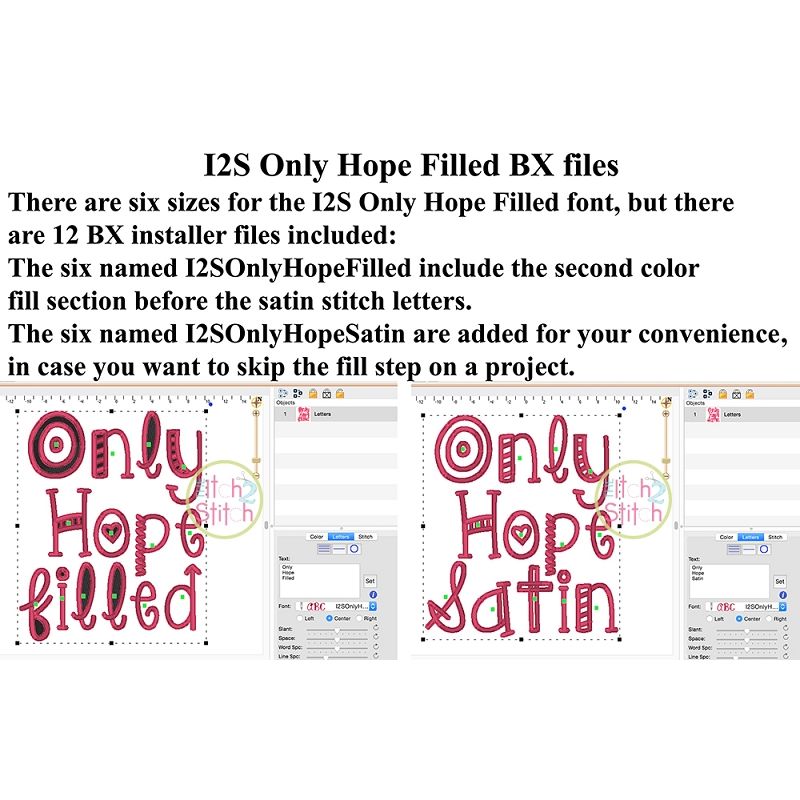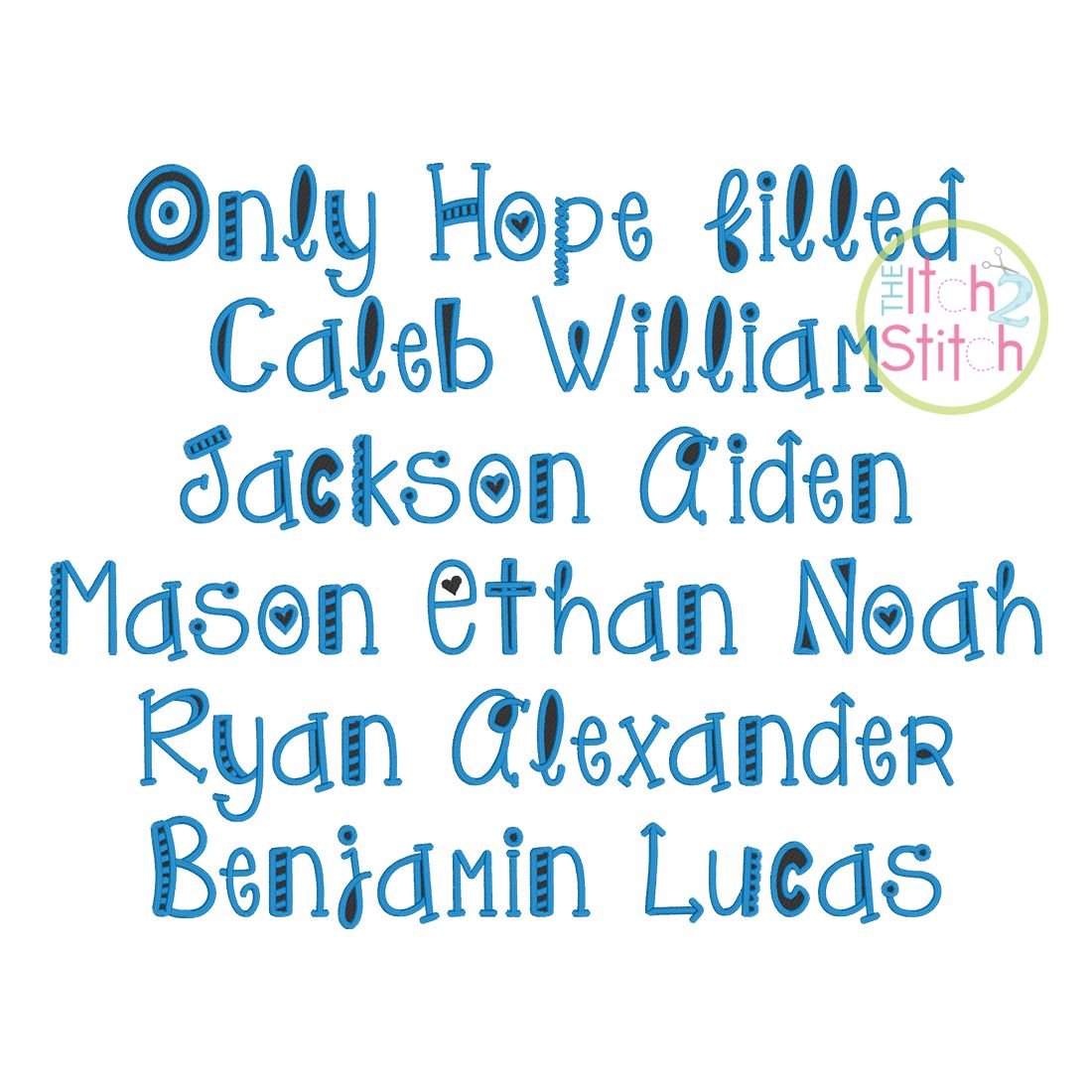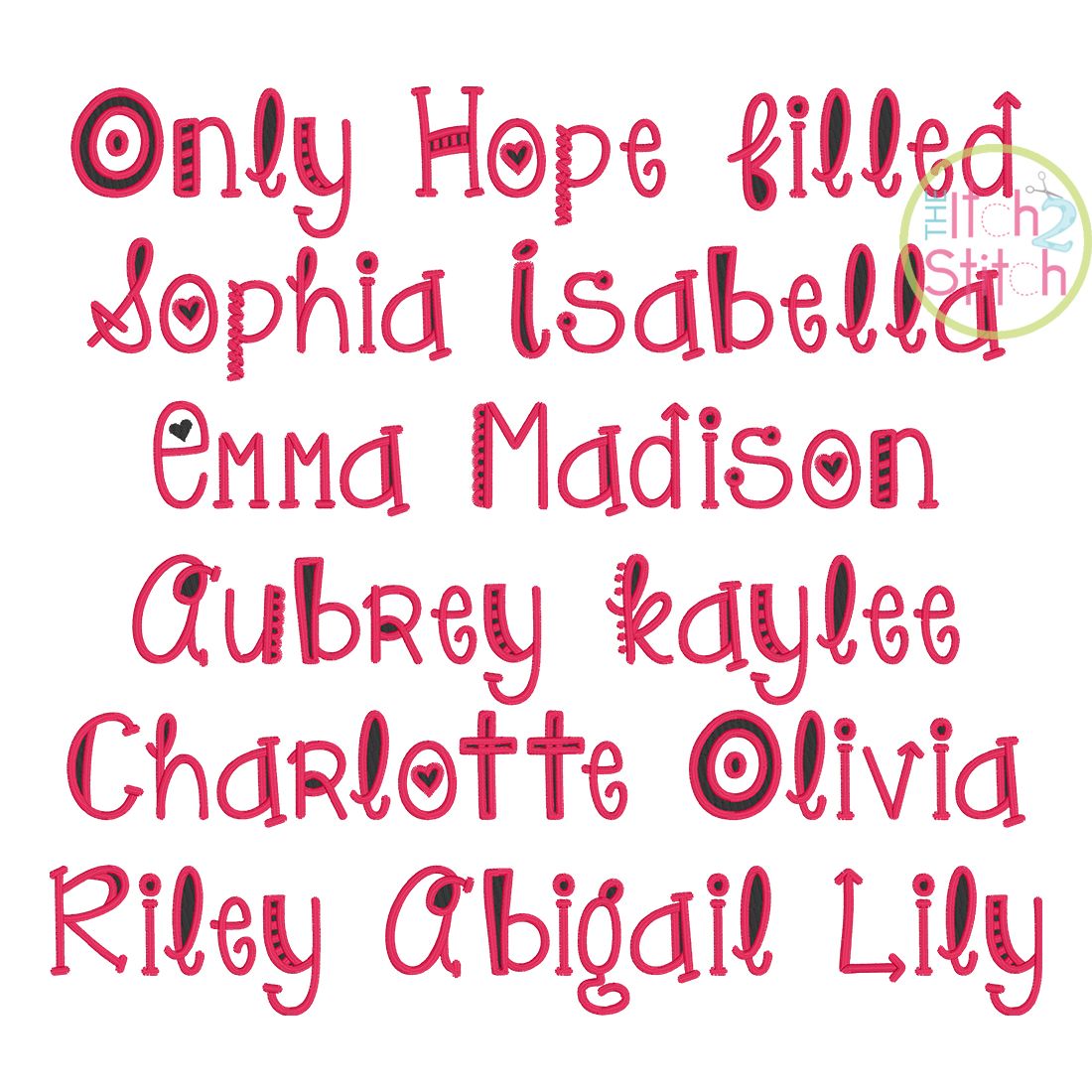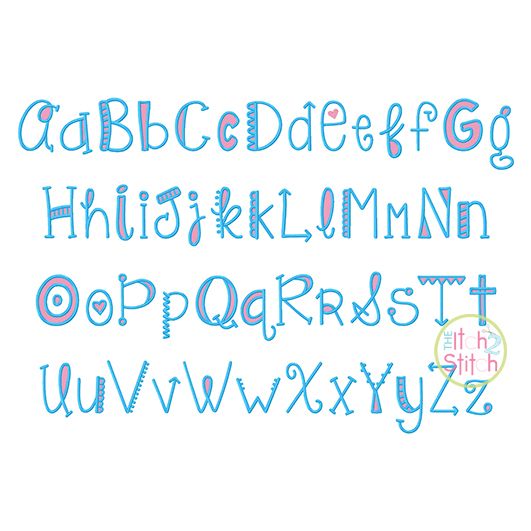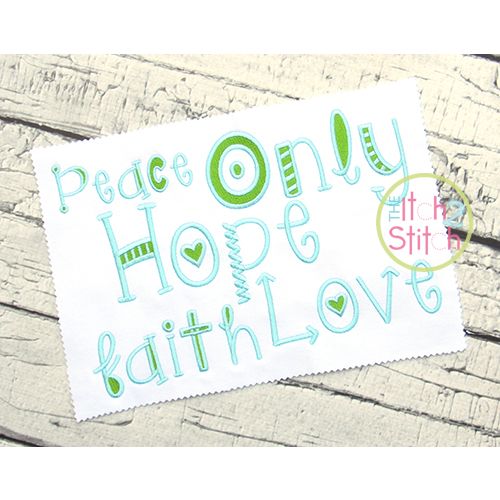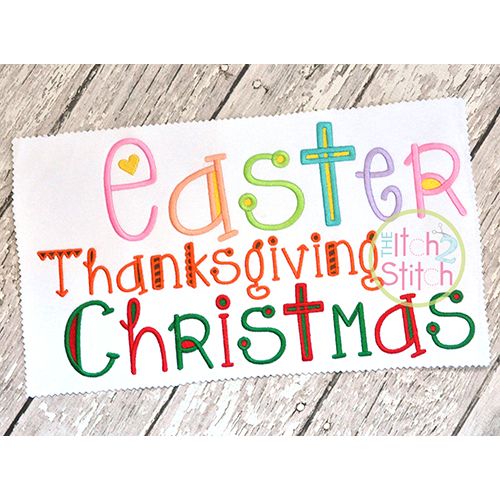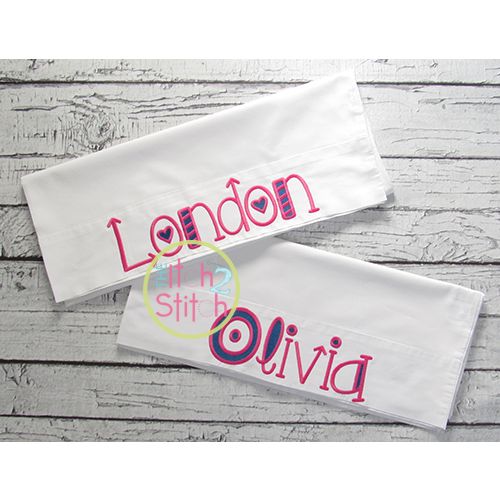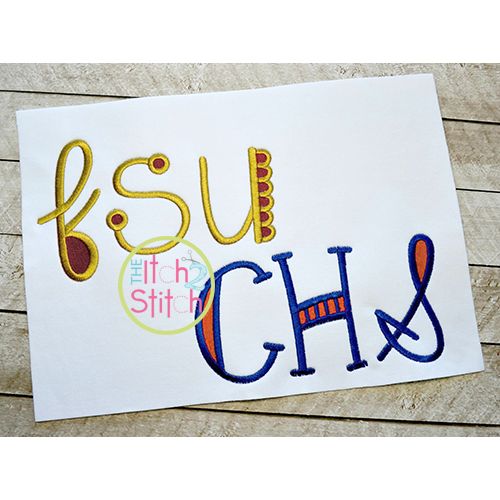
Only Hope Filled Satin Stitch Embroidery Font
You will receive all Aa-Zz letters (52 files) in six sizes (1.5", 2", 2.5", 3", 3.5" and 4"). Most letters in the set are two colors: a fill stitch step comes before the satin stitch letter, as pictured. Please note that due to keeping the font in scale, not all letters in the 4" size will fit in the 4x4 hoop, and the 3.5" lowercase g does not fit in the 4x4 hoop.
This two-color font is great for team colors and holiday projects!